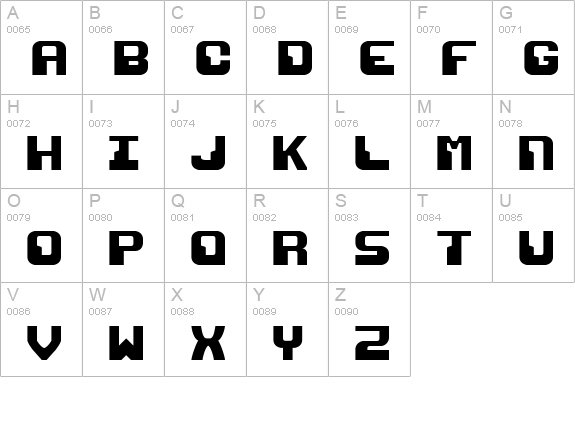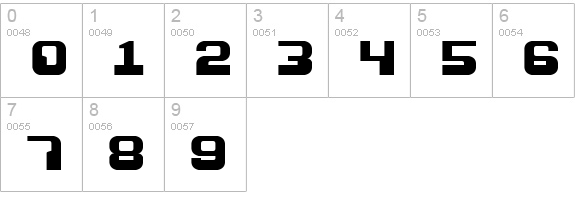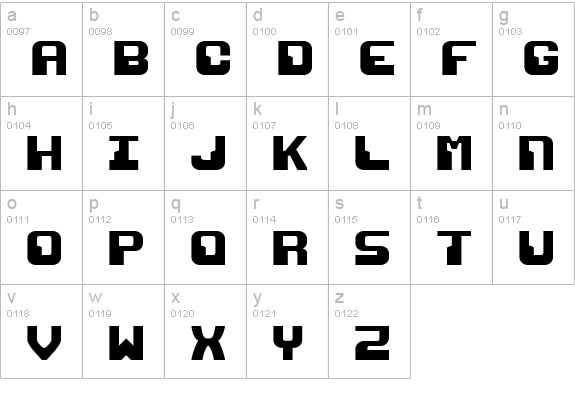
Razor 1911 Font Details
The Razor 1911 font is a stunning and captivating typeface that is sure to make a bold statement in any design project. With its sharp edges and edgy aesthetic, this font exudes a sense of power and precision. It is perfect for adding a touch of modernity and sophistication to your designs. What sets the Razor 1911 font apart is not only its remarkable design but also its availability as a free download. Yes, you read that right! This incredible font can be freely obtained at FontsMarket.com, making it accessible to all designers and enthusiasts alike. Whether you're working on a logo, branding materials, posters, or any other creative endeavor, the Razor 1911 font will undoubtedly elevate your design to new heights. Its versatility allows it to be used in various contexts, whether you want to convey a sense of elegance, strength, or even rebellion. The meticulously crafted letterforms of Razor 1911 font possess a unique sense of character, making each word and phrase stand out with its distinct visual impact. It effortlessly combines modern simplicity with a touch of retro charm, making it a timeless choice for any design project. So, if you're looking for a font that not only captures attention but also showcases your creativity, look no further than the Razor 1911 font. Download it for free at FontsMarket.com and let your designs speak volumes with this remarkable typeface.